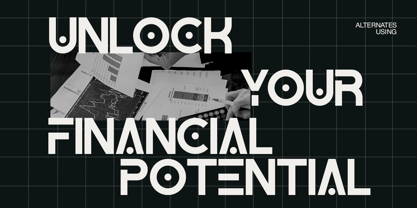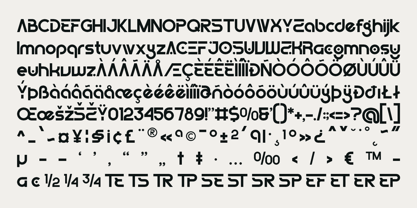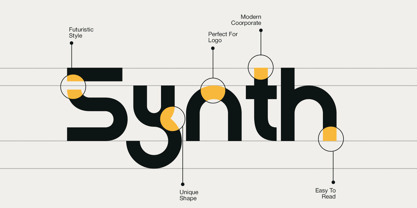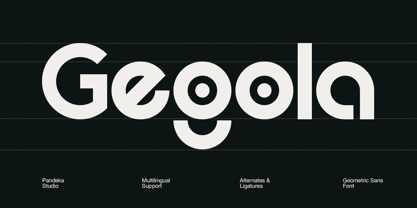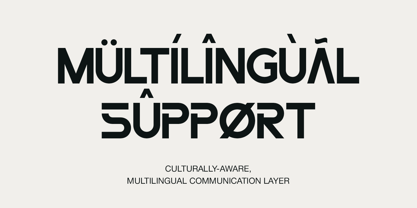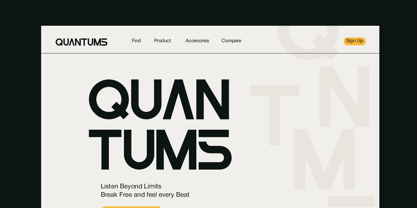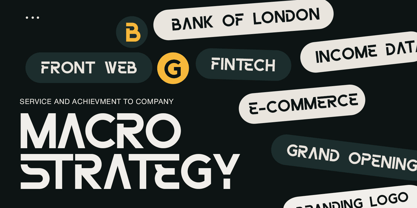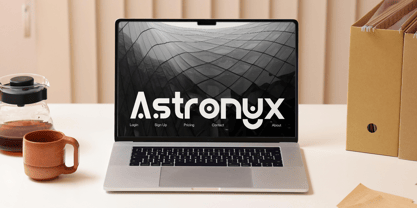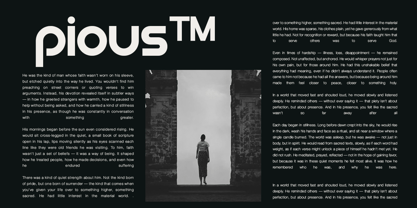
Gegola
by Pandeka Studio
The Gegola Font Family was designed by Sagara Nararya and published by Pandeka Studio. Gegola contains 2 styles and family package options. More about this family
Gegola is a bold geometric sans-serif typeface with a modern, futuristic edge. Designed to command attention while maintaining legibility, Gegola is ideal for technology brands, fintech products, editorial layouts, and marketing strategies.
With multilingual support and clean, modular letterforms, Gegola offers strong visual impact whether used in logos, headlines, or digital interfaces. Its well-crafted alternates and consistent proportions provide flexibility for both creative and corporate projects.
• 2 Style: Regular and Oblique
• Full Character Set: Uppercase, lowercase, numbers, symbols, and punctuation
• 32+ Ligatures and alternates